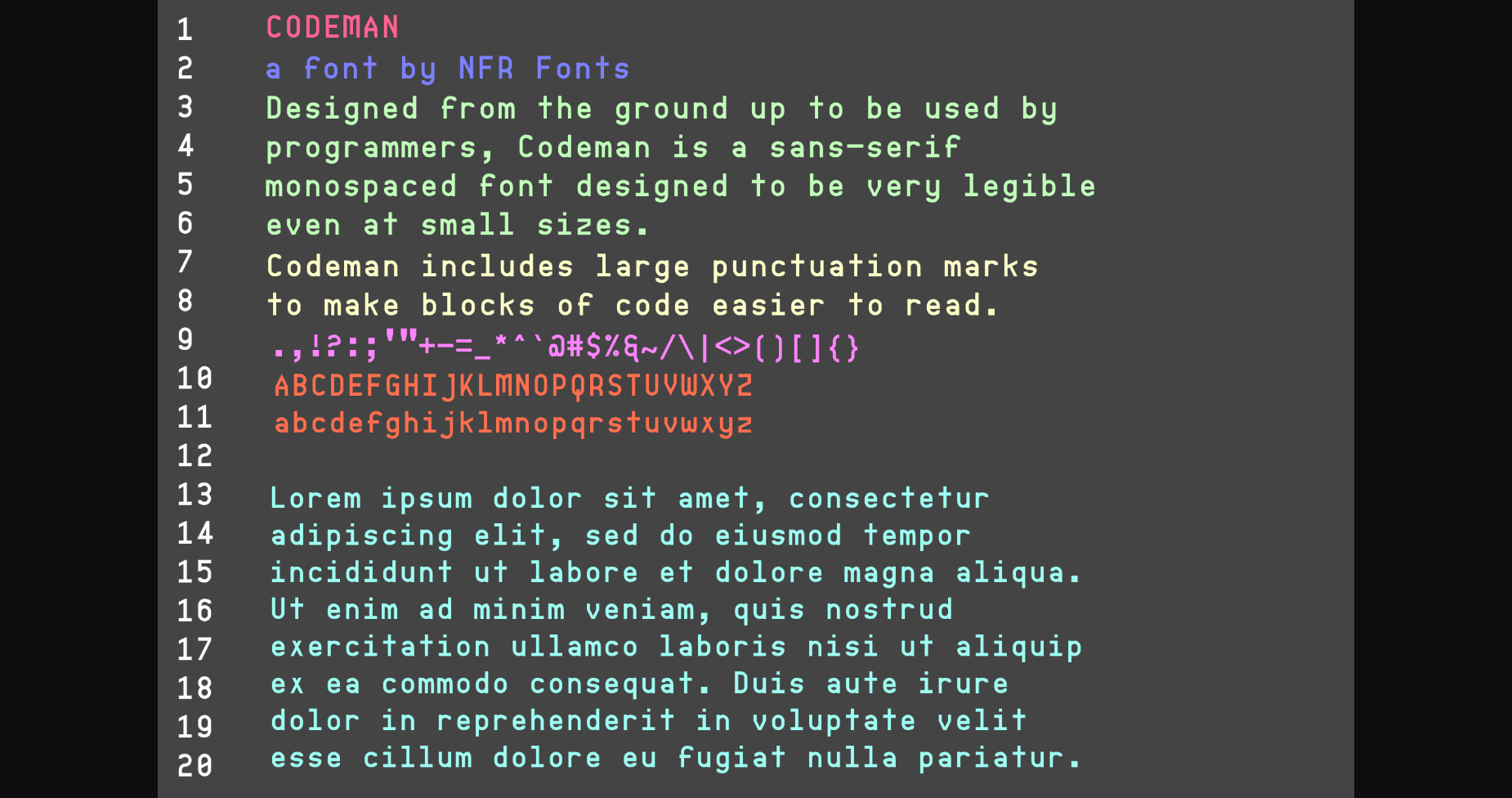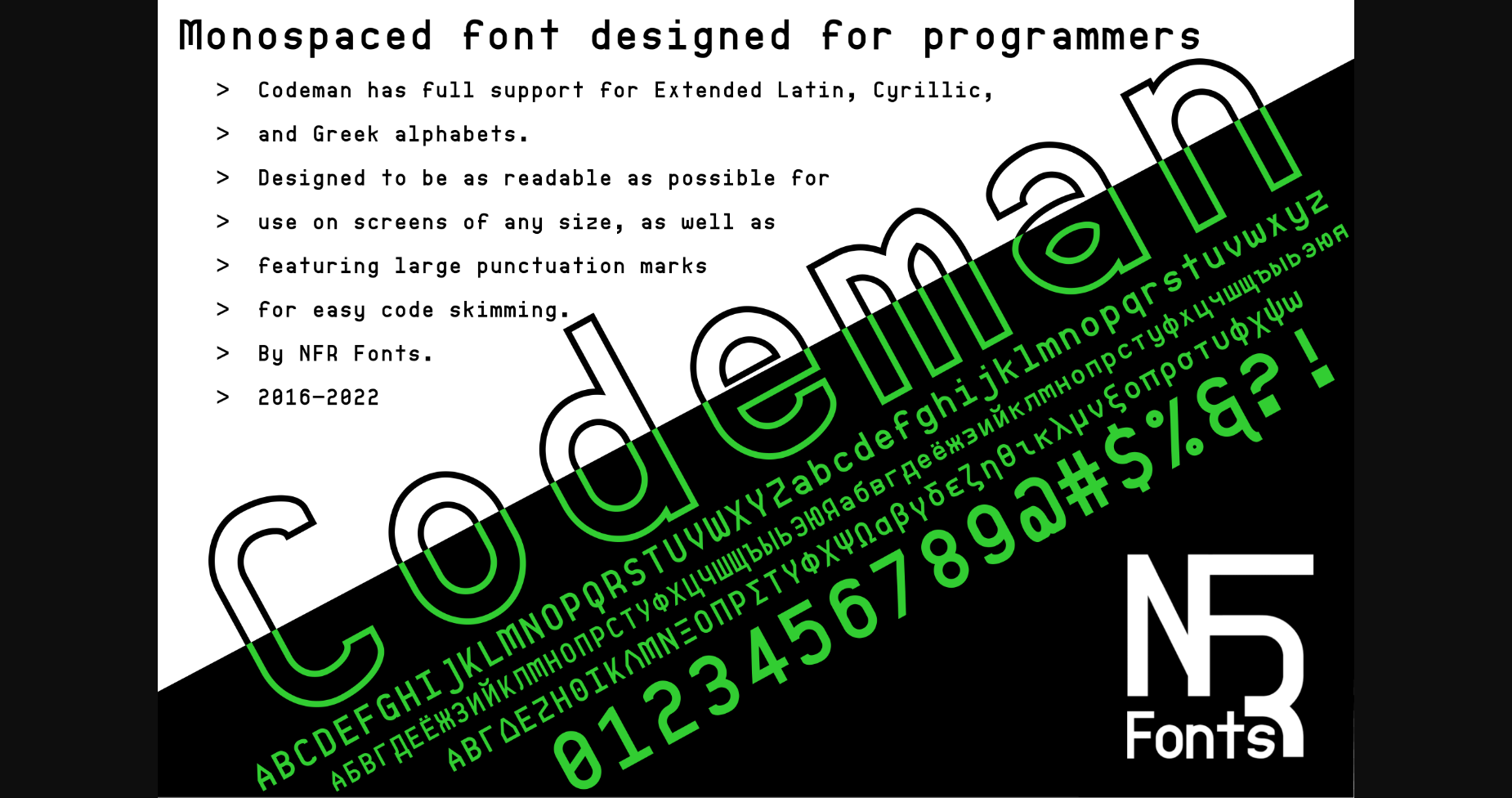
Codeman Font
About Codeman Font
Codeman is a cool and modern sans serif font. It is suitable for logotype, headline font, in corporate identity, brand identity, apparel industry, poster, music, movie, game, magazine, book, comic, cartoon, YouTube, Instagram, website, or any of your creative design projects.